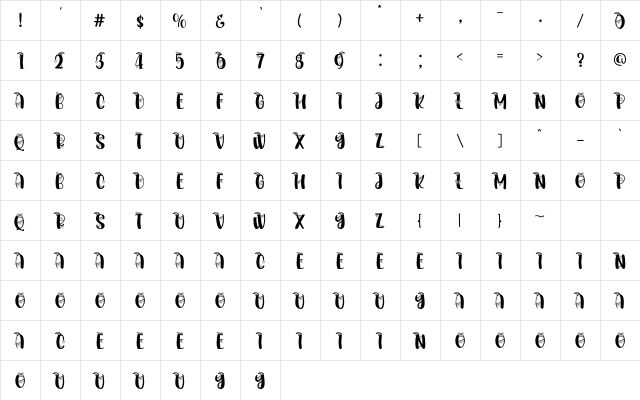
Christmasland Decorative
Design Context for Christmasland Typeface
Christmasland brings ornamental detail and strong personality to headlines and identities, where visual impact matters more than quiet functionality.
Font Pairing: Pair with a clean neutral sans-serif for body copy to let Christmasland's character lead without overwhelming the composition.
Pro Tip: Treat Christmasland as the centrepiece of your typographic hierarchy. One strong heading set in a decorative face can carry an entire layout.